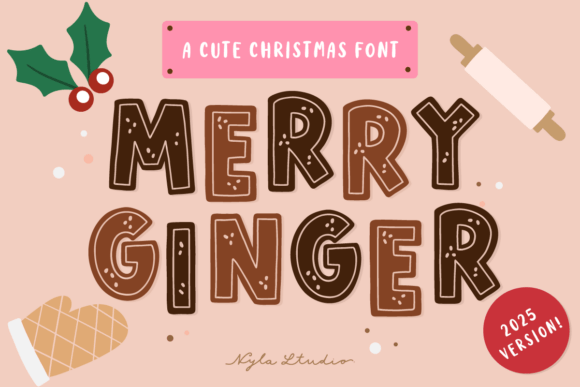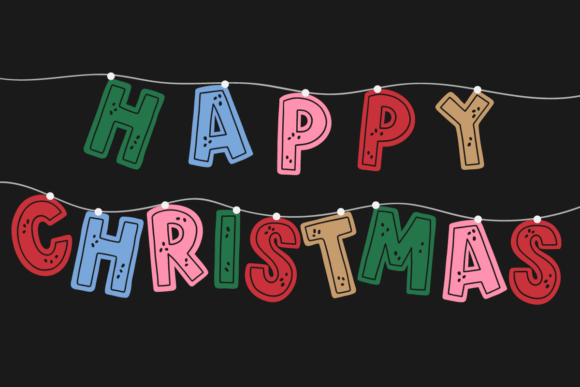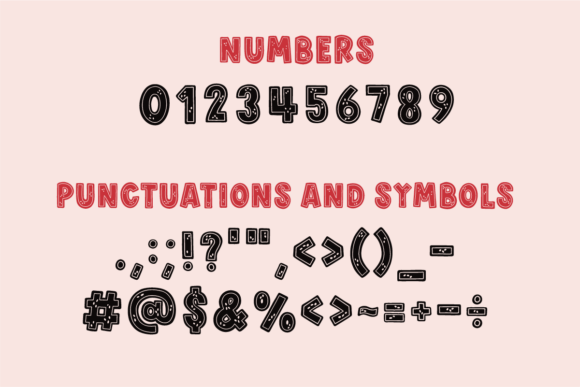
Merry Ginger Font
Merry Ginger is a cute gingerbread decorative font. Perfect for Christmas projects, card, shirts, retro designs, Christmas invitations, mugs, stickers, playful quotes, creating posters, logos, greeting cards, packaging, decorating the illustration and so much more!